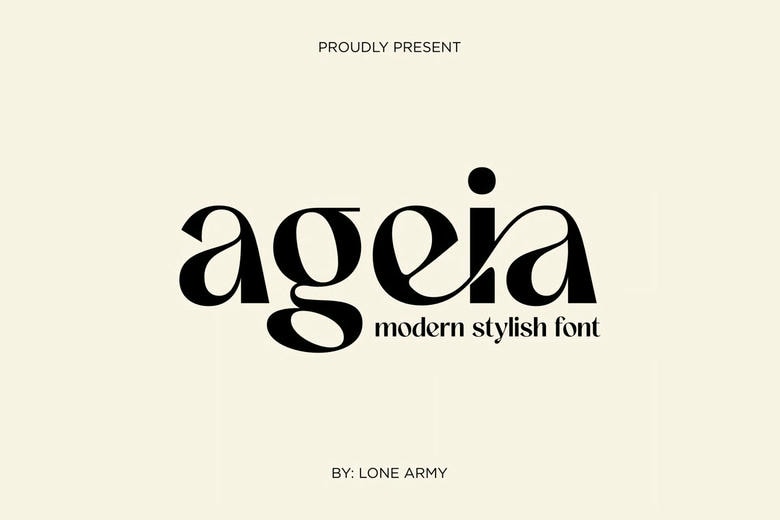
Ageia Font
Ageia is a modern luxury typeface that, by merging sleek modern design with a light retro flavor and wild tropical vibe, creates a wonderful harmony of time. Ageia is an aesthetically designed typeface, complete with stylistic ligatures, which introduces a distinct flare and fluidness to your text.
Complete with fashion, branding, and lifestyle projects who want a new and yet old appearance that brings about warm and sophisticated feel and an island breeze.
Ageia Sans Serif Font